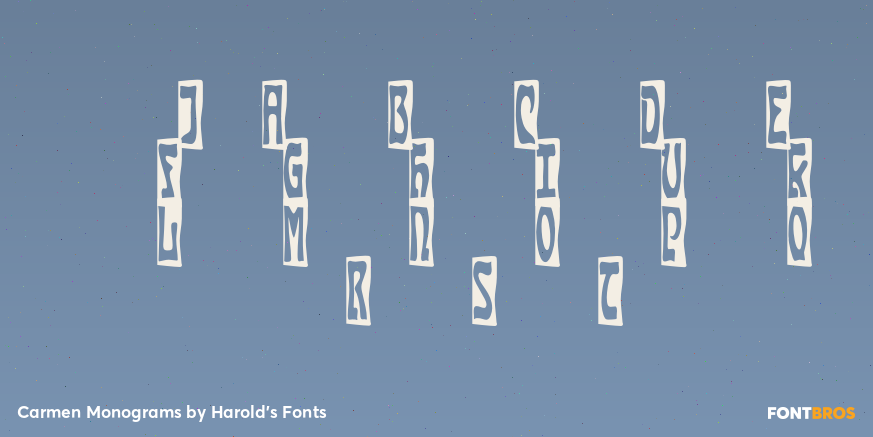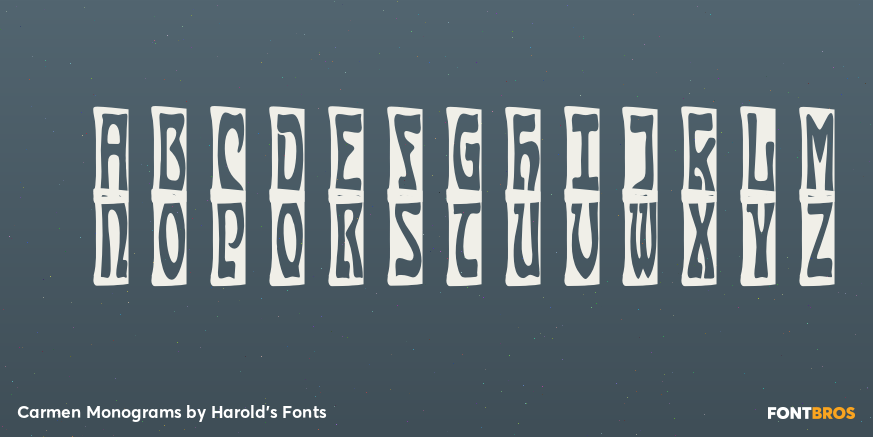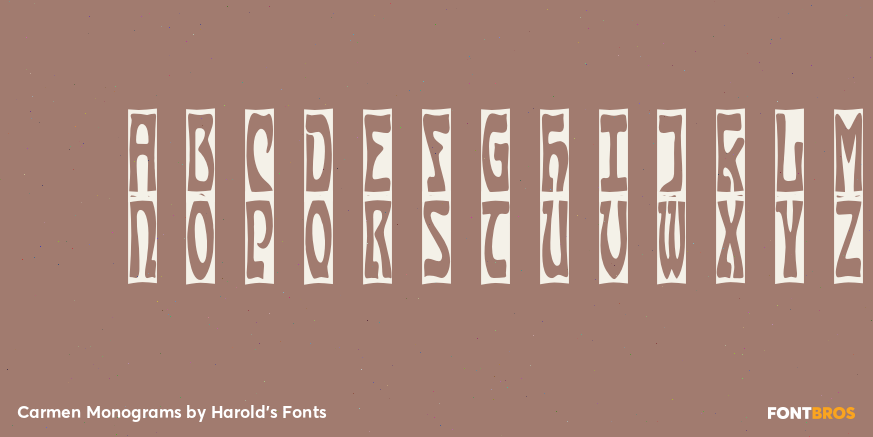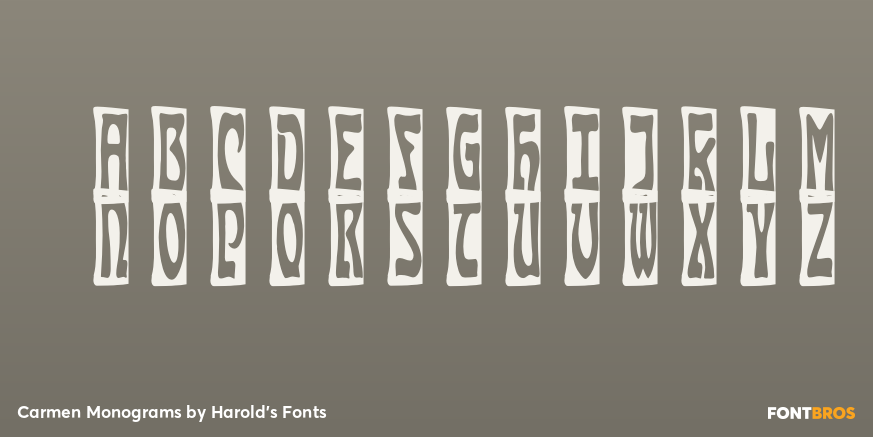
Carmen Monograms
Font Family by Harold's Fonts
Carmen Monograms is a set of three fonts for creating 2- and 3-letter monograms with black or white backgrounds inspired by a curvy Art Nouveau style called "Carmen" or "Edelgotisch". One font makes monograms with white backgrounds of 2 or 3 letters; 2 other fonts are for the black background monograms. You can also choose to put a border your monogram.